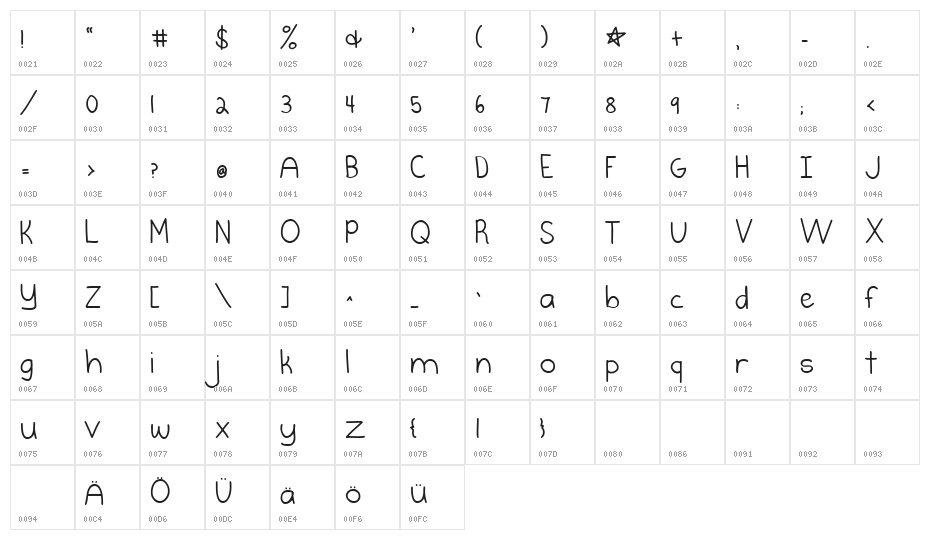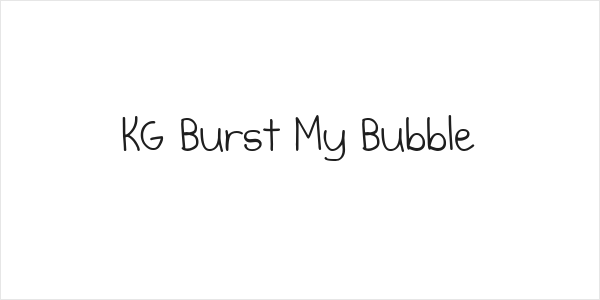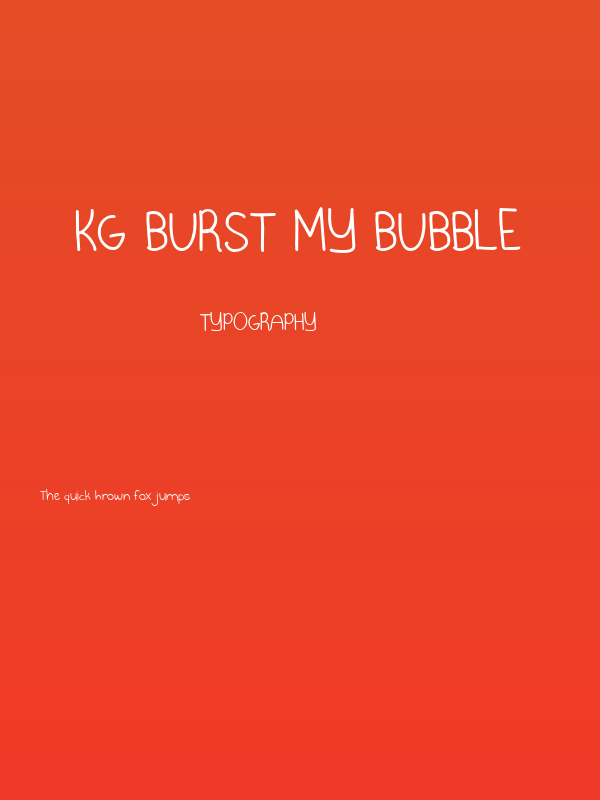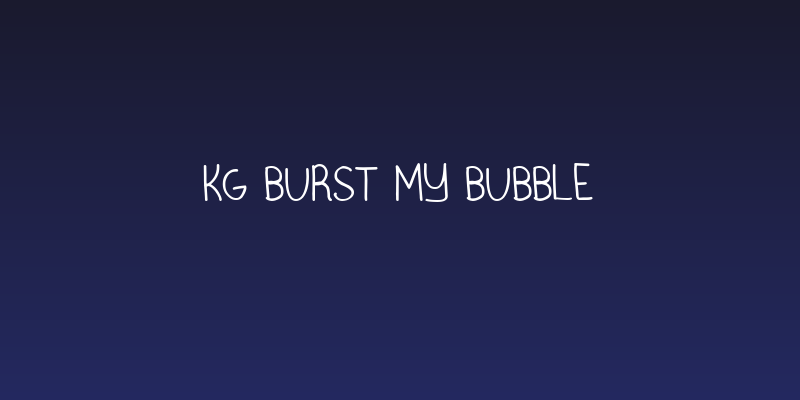
KG Burst My Bubble Font
KG Burst My Bubble Description
This playful and whimsical font features rounded, bubbly characters that convey a sense of fun and lightheartedness. The letters are slightly irregular, adding a hand-drawn feel that enhances its casual style. The uppercase and lowercase letters maintain a consistent flow, while the numerals and special characters complement the overall design. Its friendly appearance makes it suitable for informal and creative projects, appealing to audiences looking for a touch of personality in their text.
| Proposed Projects | Ideal for children's books, greeting cards, playful branding, and casual invitations. |